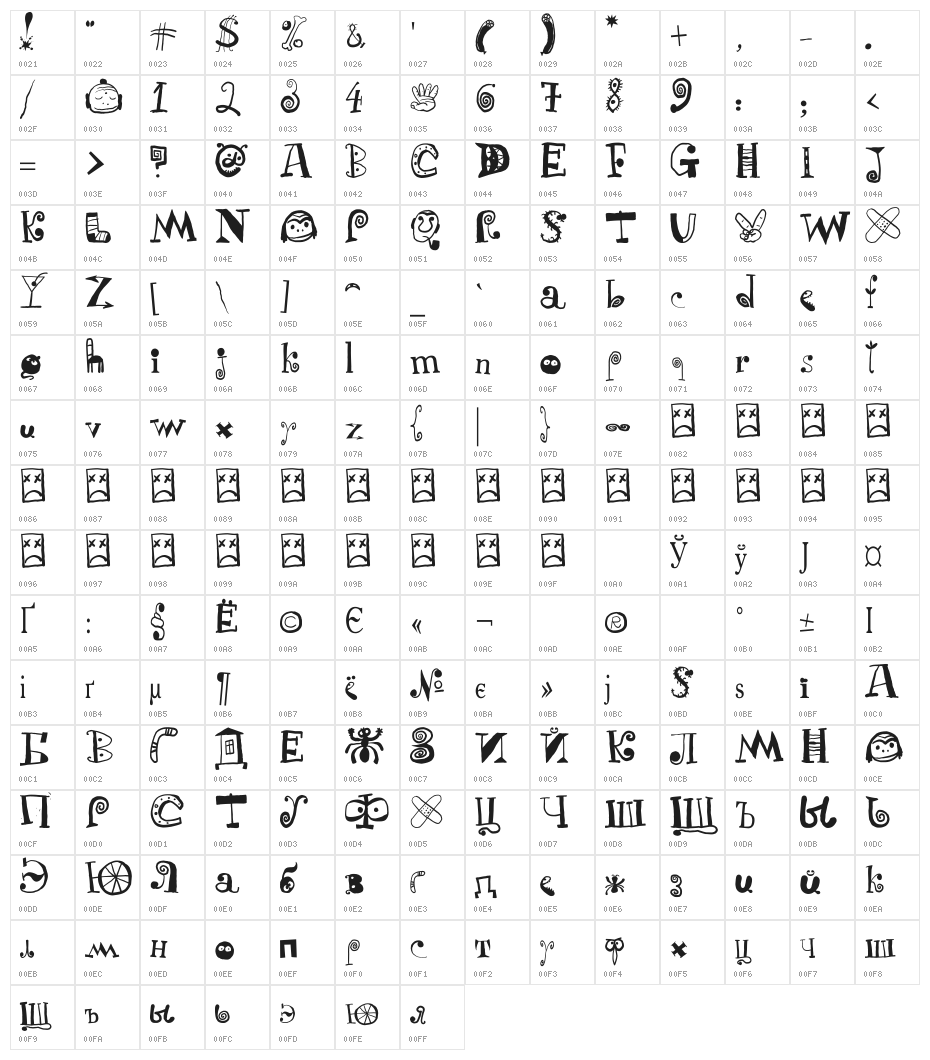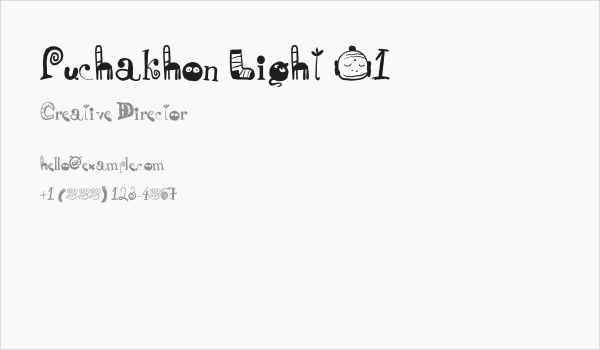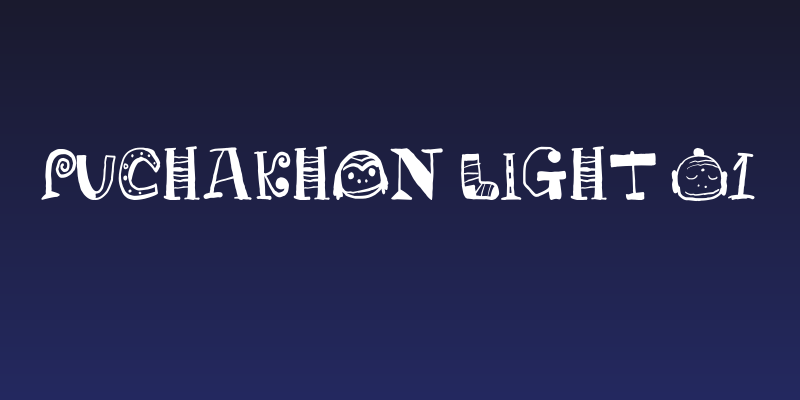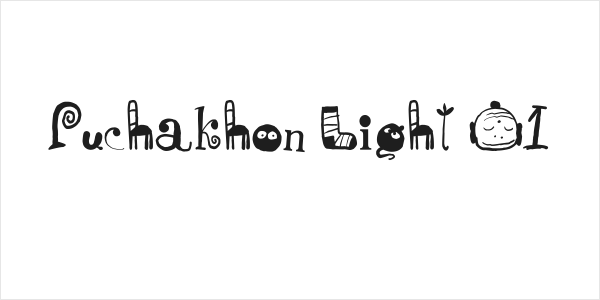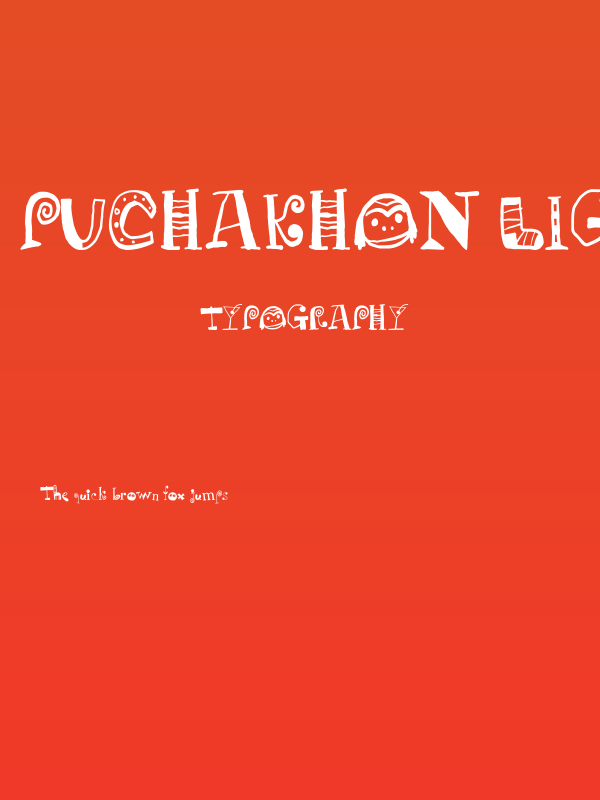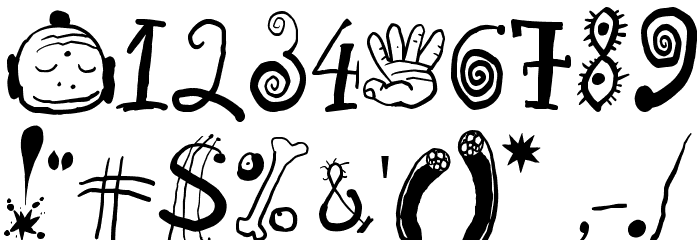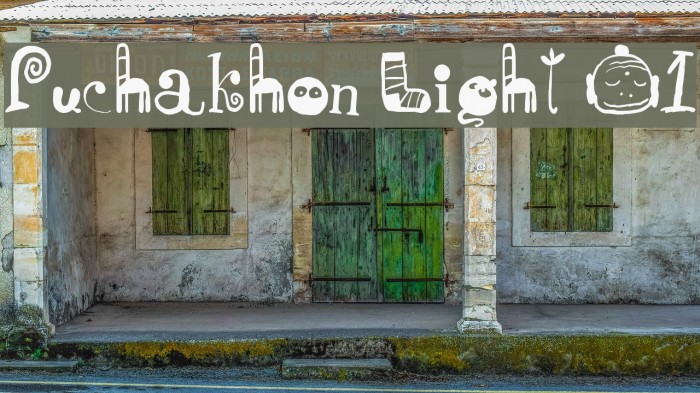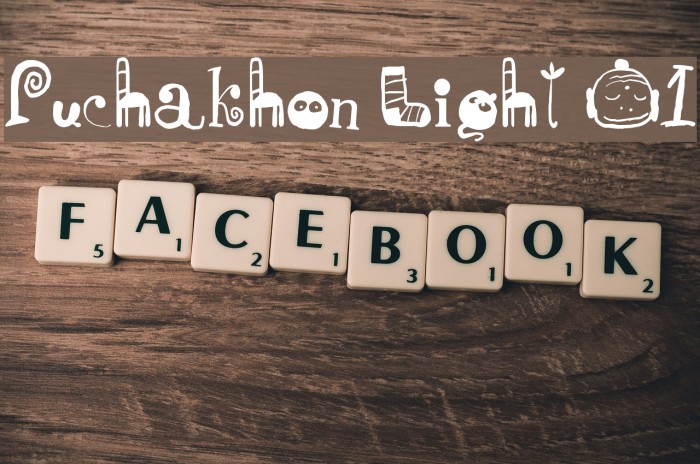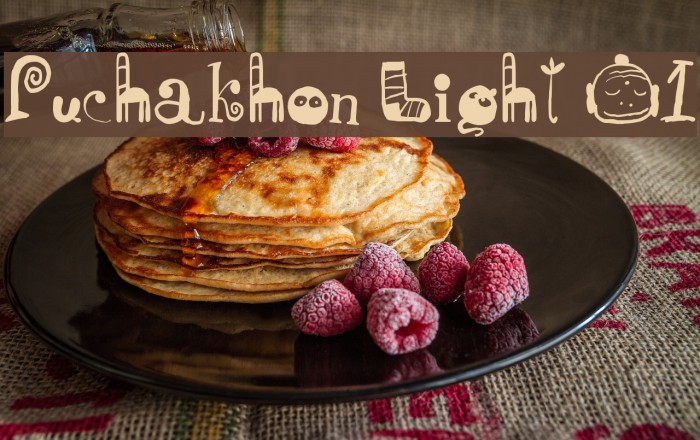
Puchakhon Light 01 Font
Puchakhon Light 01 Description
This playful and whimsical font features a variety of quirky and imaginative letterforms, each with its own unique character. The uppercase letters are bold and expressive, incorporating elements like polka dots, stripes, and playful motifs. The lowercase letters continue this theme with creative embellishments and unexpected shapes. Numbers and special characters are equally imaginative, with designs that include faces, hands, and abstract symbols. This font is perfect for projects that require a fun and artistic touch, offering a sense of creativity and spontaneity.
| Use Case | Logos, Posters, Creative projects |
| Proposed Projects | Ideal for children's books, playful branding, creative posters, and artistic invitations. |